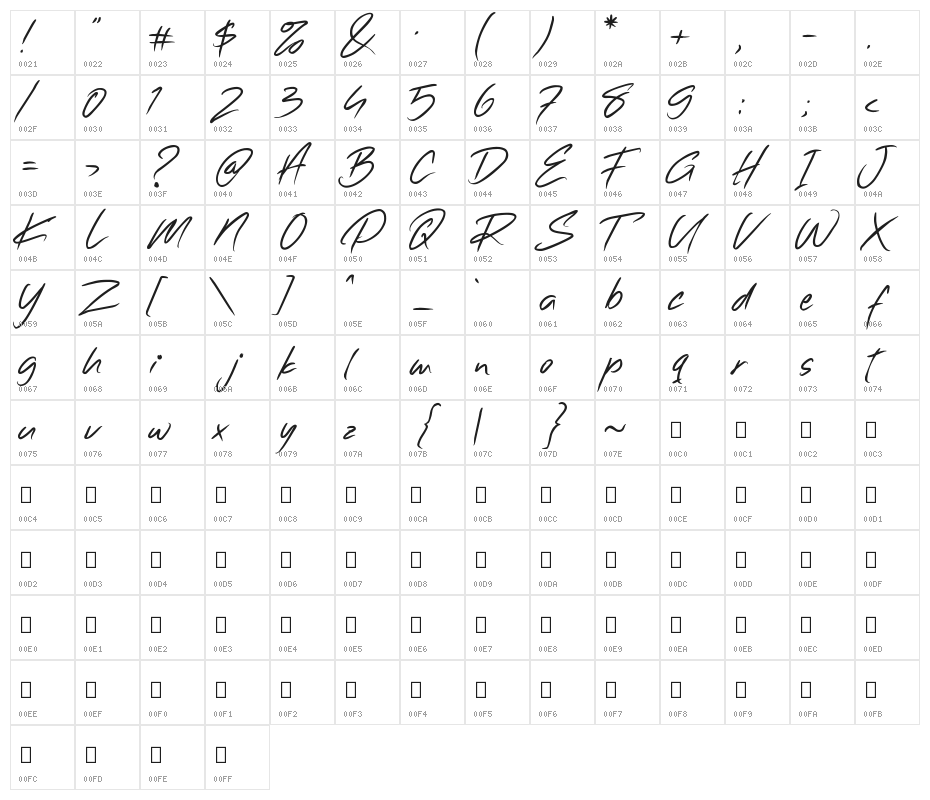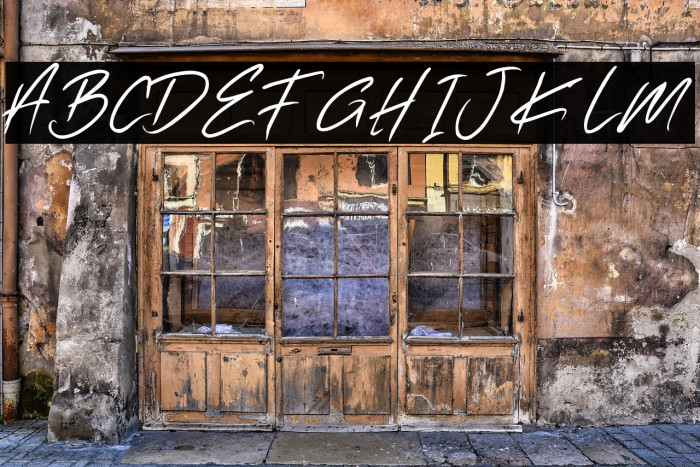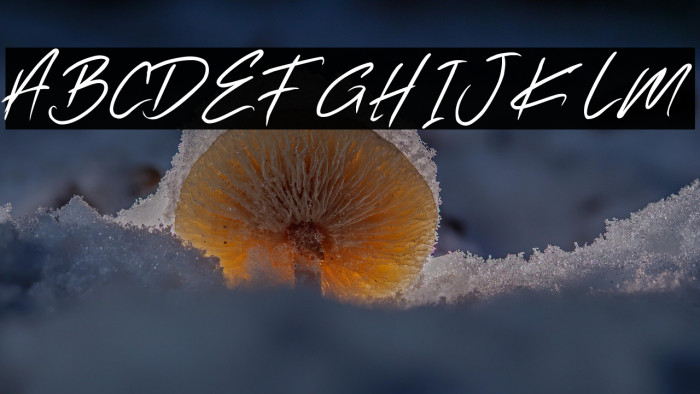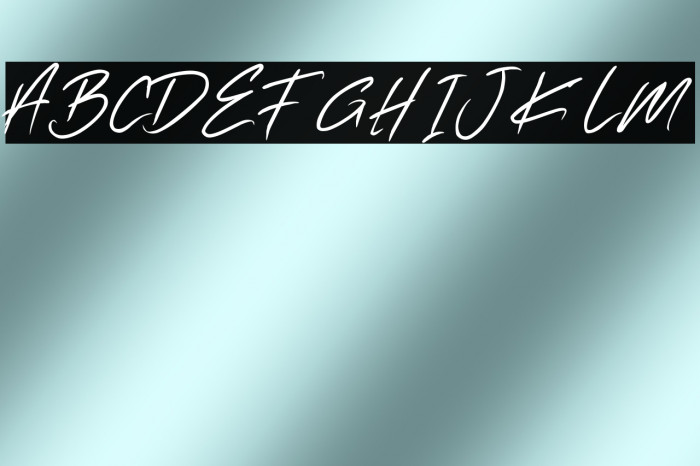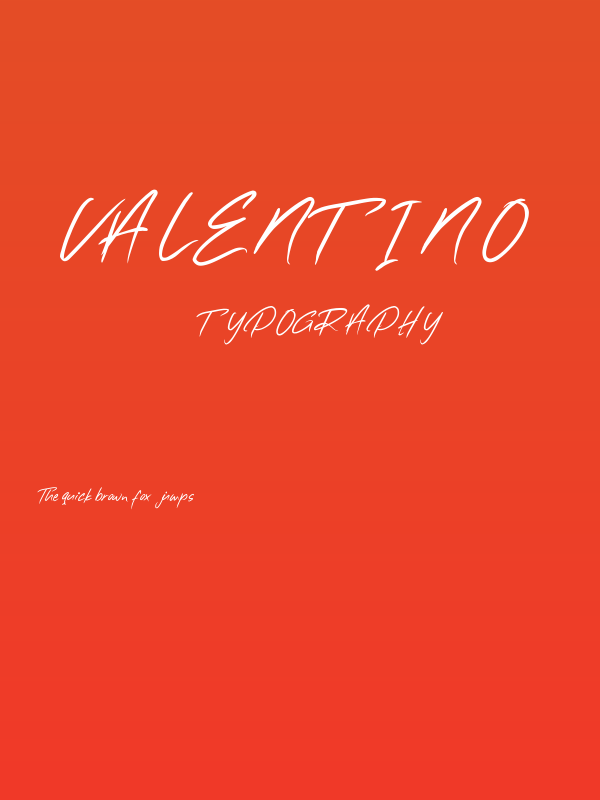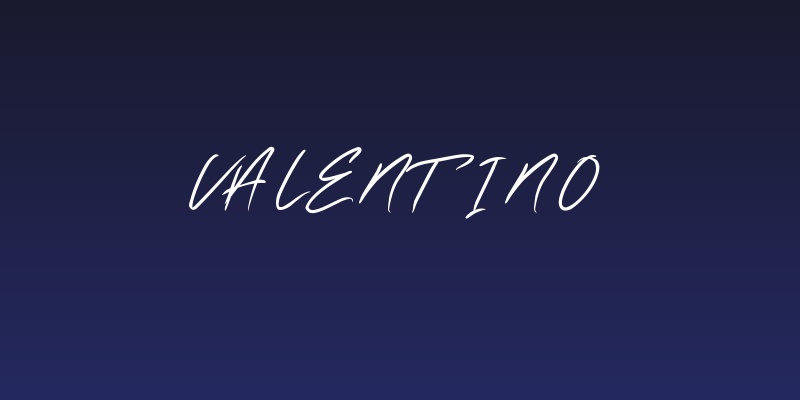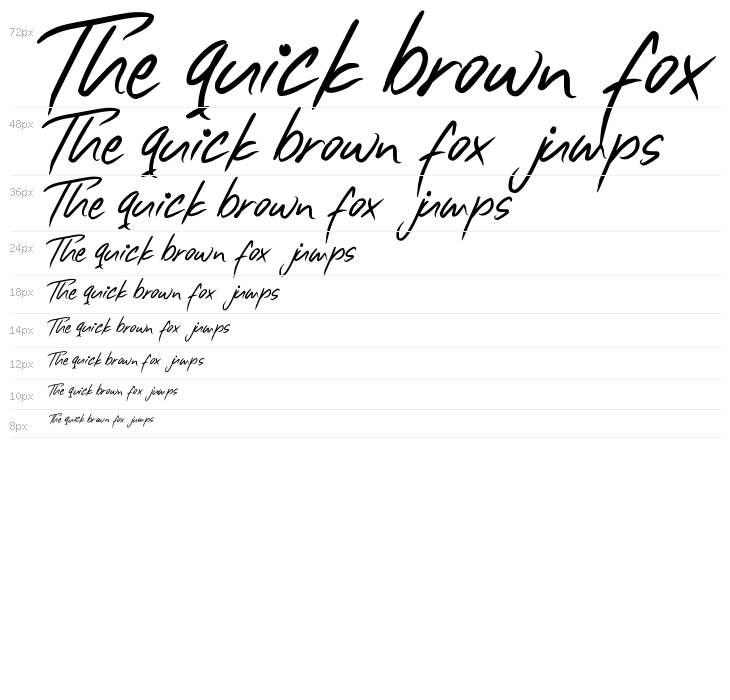
Valentino Font
Valentino Description
This font exudes a dynamic and expressive style, characterized by its fluid, cursive script that mimics natural handwriting. The letters are elegantly connected, with a consistent slant that adds a sense of motion and grace. The uppercase letters are bold and prominent, while the lowercase letters maintain a smooth, flowing appearance. The numerals and special characters are crafted with the same attention to detail, ensuring a cohesive look across all elements. This font's design is both artistic and legible, making it suitable for a variety of creative applications.